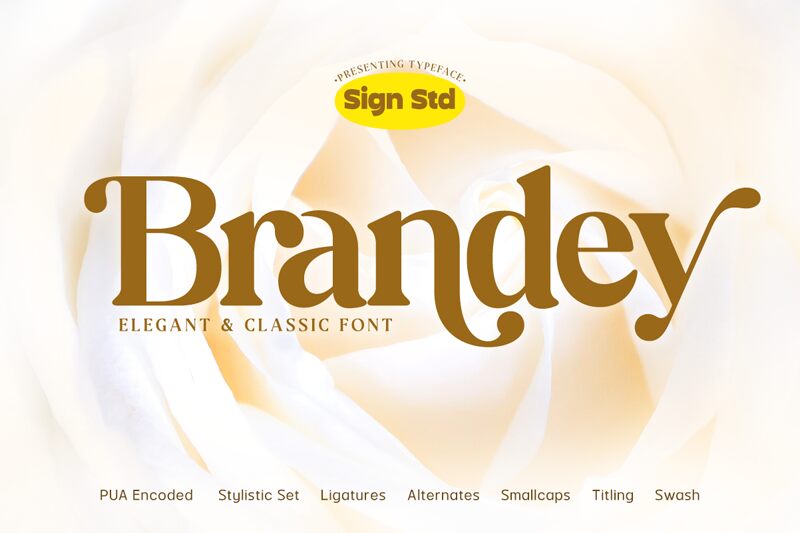
Brandey is a bold serif font designed by Sign Studio that exudes elegance and sophistication. Its strong, confident strokes make it perfect for creating impactful headlines and attention-grabbing logos. Whether you're working on a high-end fashion magazine, an upscale restaurant menu, or a luxury branding project, Brandey's timeless appeal will add a touch of class to your designs. With its impeccable legibility and classic charm, this versatile font is also well-suited for editorial layouts, book covers, and formal invitations. Elevate your projects with Brandey's bold beauty and leave a lasting impression on your audience.
Brandey